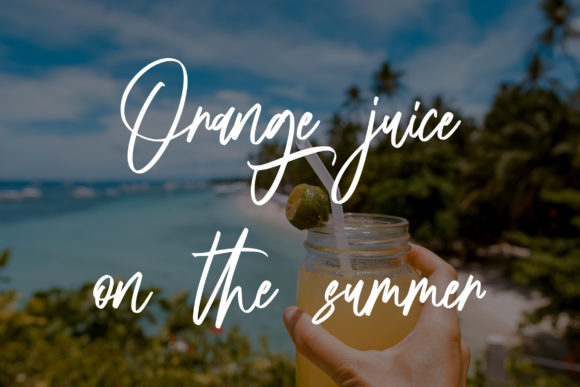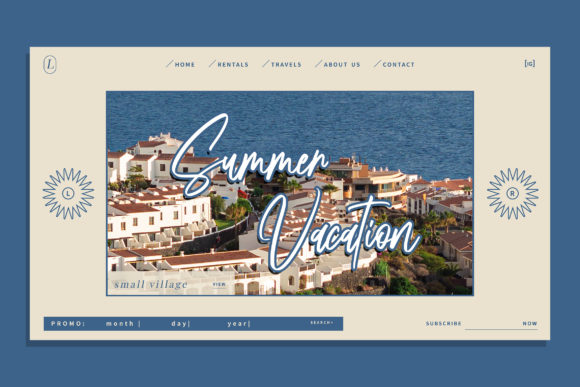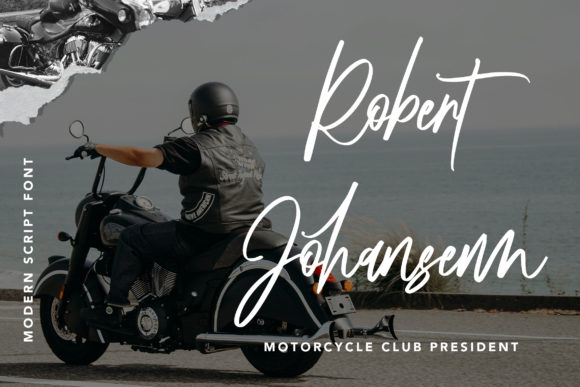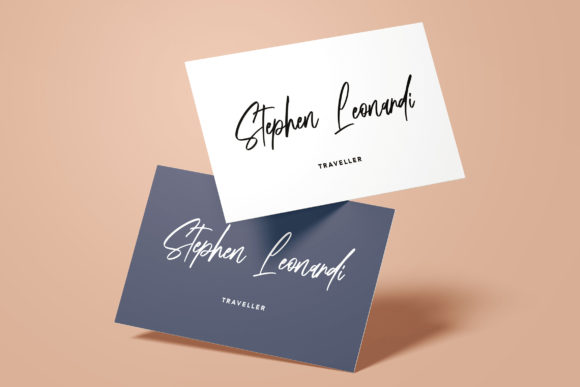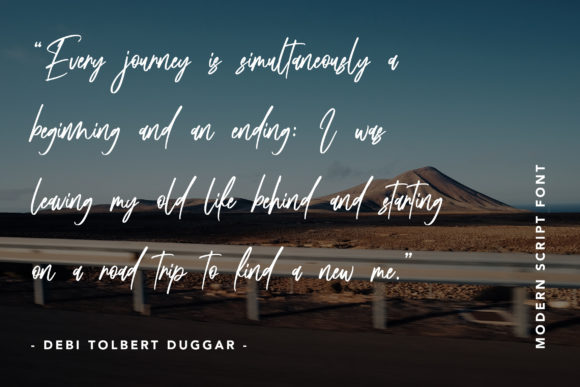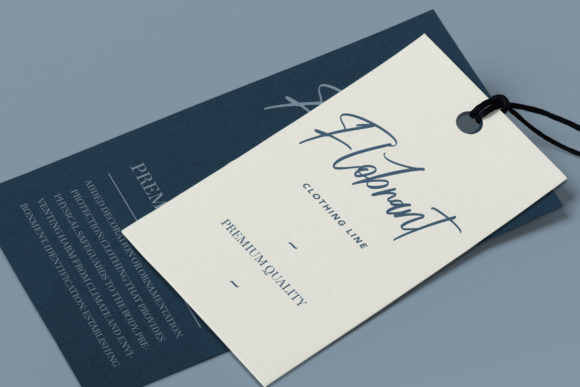
Introducing Beginning: The Ultimate Script Font for Creative Projects
In the world of typography, a great font can make all the difference in elevating your design to the next level. If you’re a designer, crafty enthusiast, or simply someone who appreciates beautiful typography, you’re in luck! We’re excited to introduce Beginning, a trendy and stylish script font that’s sure to become a staple in your font library.
The Versatility of Beginning
Beginning is more than just a font – it’s a versatile tool that can enhance any creation, regardless of the topic or theme. Whether you’re working on a branding project, crafting a social media graphic, or designing a beautiful wedding invitation, Beginning is the perfect choice. Its elegant and flowing script style adds a touch of sophistication and whimsy, making it ideal for a wide range of applications.
What Sets Beginning Apart
So, what makes Beginning stand out from the crowd? For starters, it’s PUA (Private Use Area) encoded, which means you can access all glyphs and swashes with ease. This feature allows you to unlock the full potential of the font, giving you the creative freedom to experiment with different combinations of letters, swashes, and ornaments.
Key Features of Beginning
• PUA Encoded: Access all glyphs and swashes with ease, giving you maximum creative control.
• Trendy and Stylish: Beginning’s script style is both modern and elegant, making it perfect for a wide range of design projects.
• Versatile: Use Beginning for branding, social media graphics, wedding invitations, and more – the possibilities are endless!
• Elegant Swashes: Add a touch of sophistication to your design with Beginning’s beautiful swashes and ornaments.
Why Designers and Crafters Love Beginning
As a designer or crafter, you know how important it is to have a font that can keep up with your creative vision. Beginning is designed with you in mind, offering a range of benefits that make it an essential addition to your font library.
For designers, Beginning offers:
• Flexibility: Use Beginning for a wide range of projects, from branding and advertising to packaging and web design.
• Ease of Use: Beginning’s PUA encoding makes it easy to access all glyphs and swashes, streamlining your design process.
• Unique Style: Stand out from the crowd with Beginning’s distinctive script style, which adds a touch of elegance and sophistication to any design.
For crafters, Beginning offers:
• Inspiration: Use Beginning to add a personal touch to your crafting projects, from handmade cards to DIY home decor.
• Ease of Use: Beginning’s user-friendly design makes it easy to incorporate into your crafting projects, even if you’re not a professional designer.
• Endless Possibilities: With Beginning, you can create unique and beautiful crafting projects that reflect your personal style.
In conclusion, Beginning is a must-have script font for designers and crafters alike. Its trendy and stylish design, combined with its versatility and ease of use, make it an essential addition to any font library. Whether you’re working on a professional design project or a personal crafting endeavor, Beginning is the perfect choice. So why wait? Download Beginning today and unlock the full potential of your creative projects!